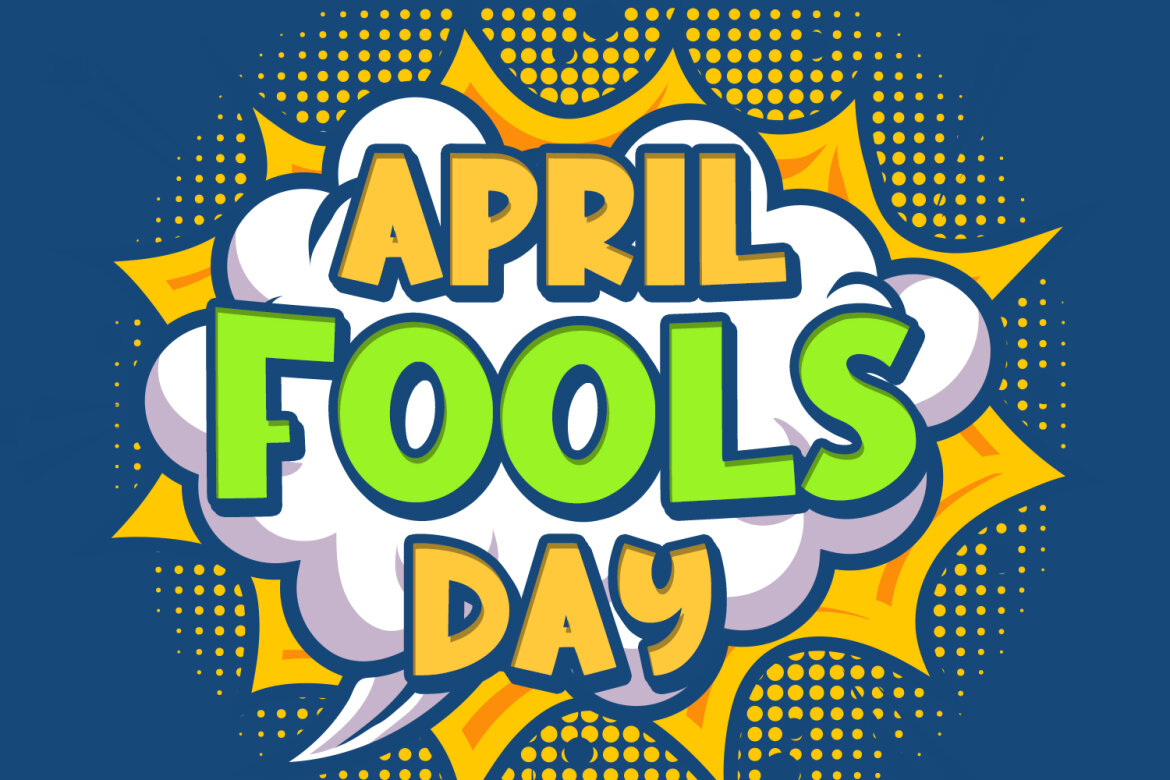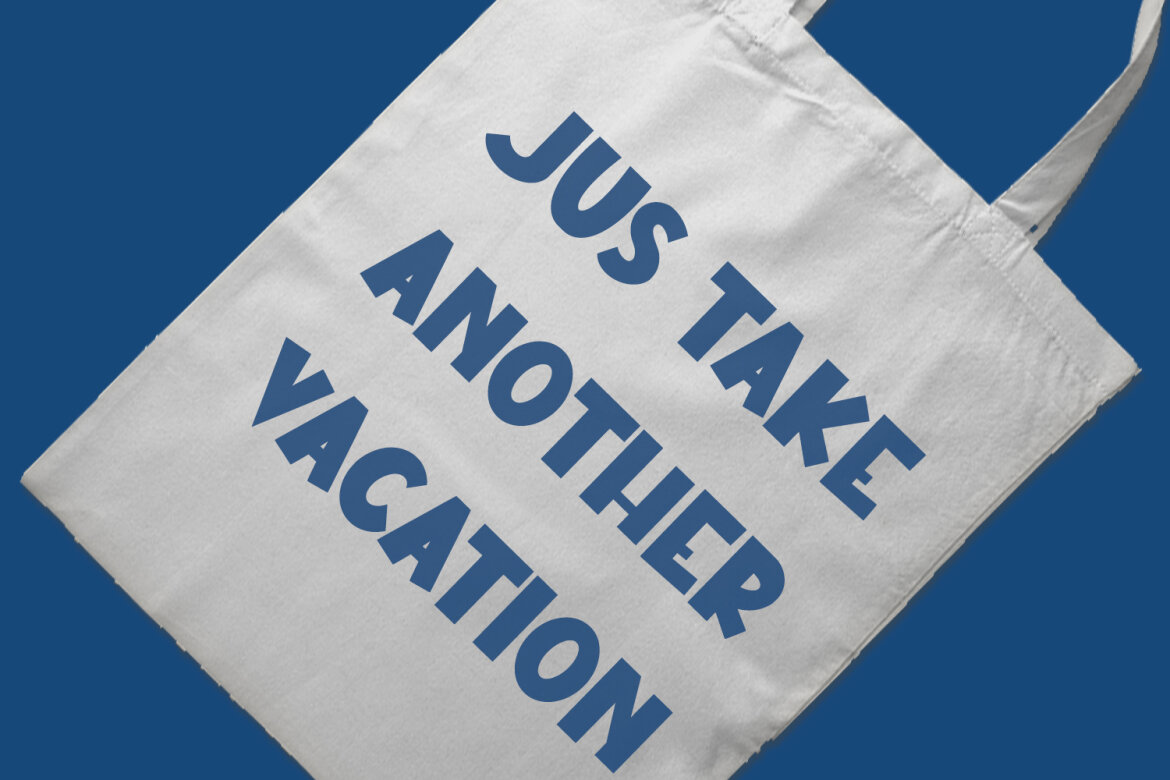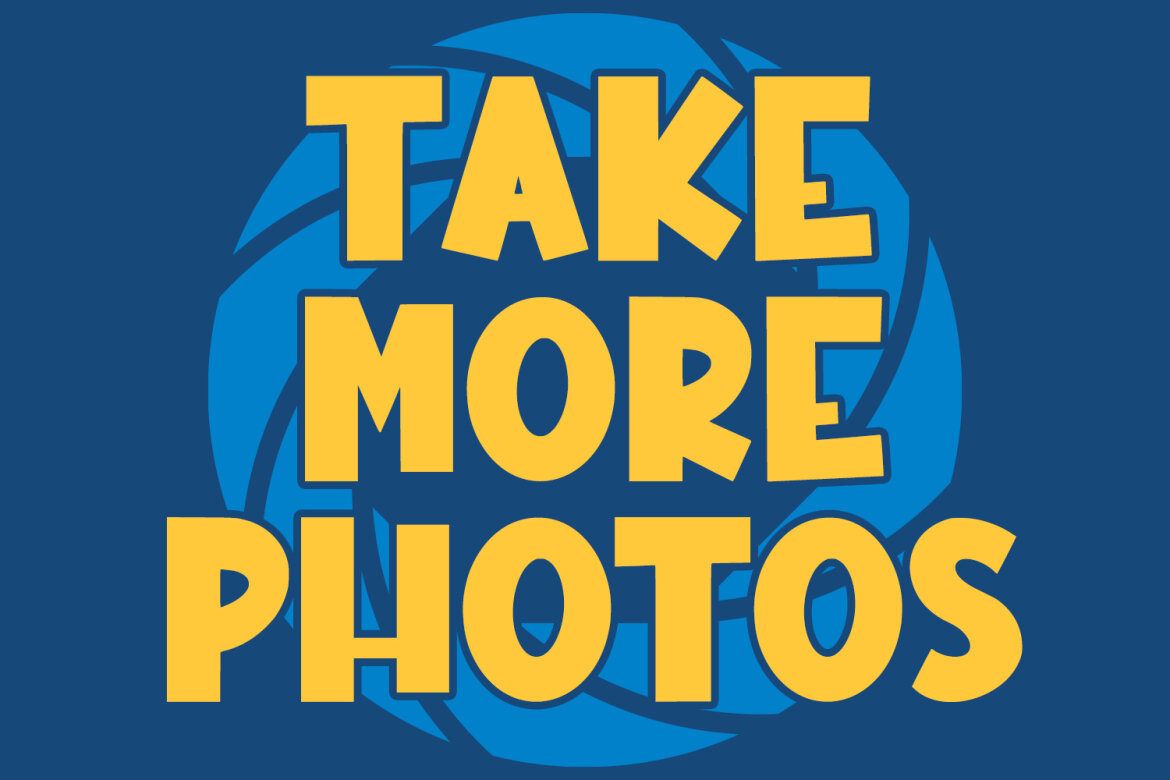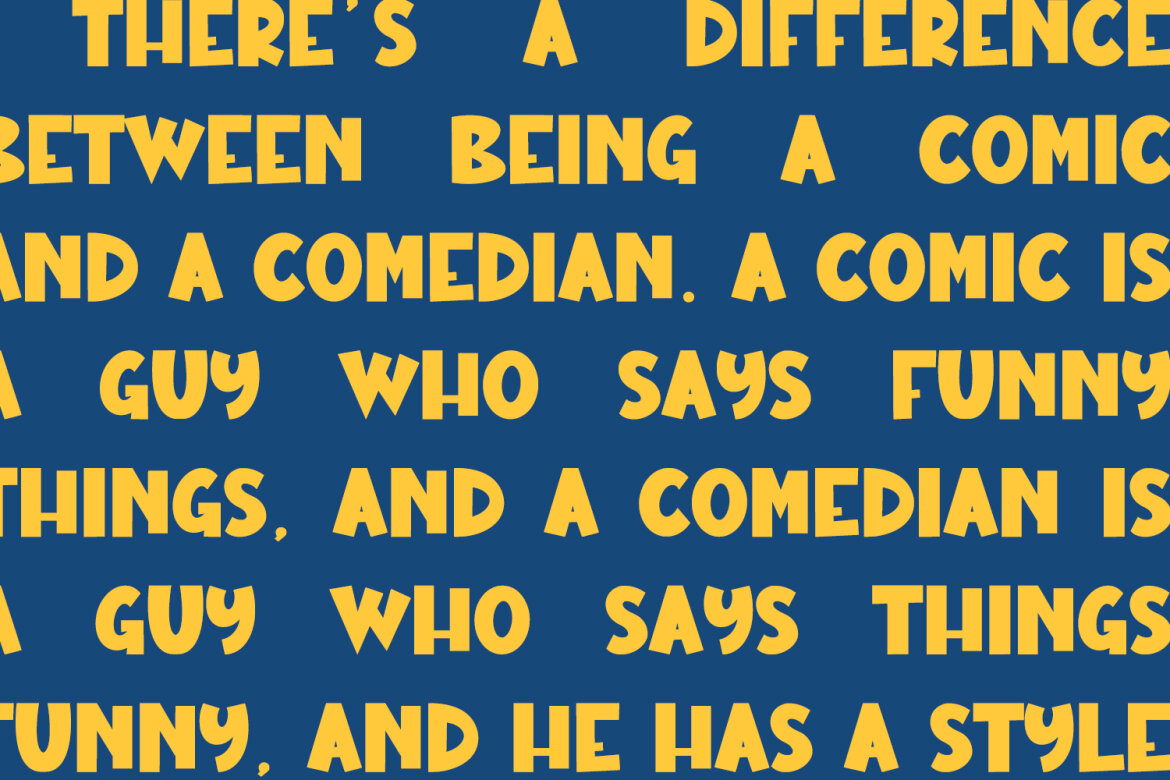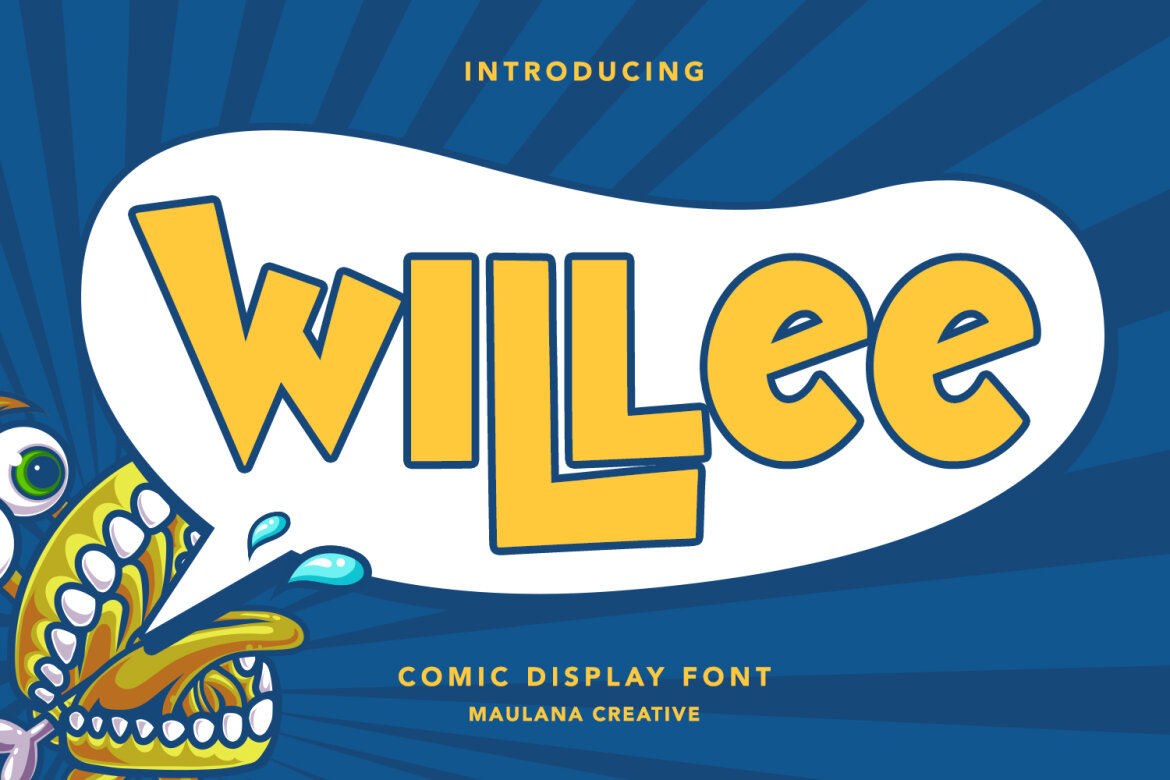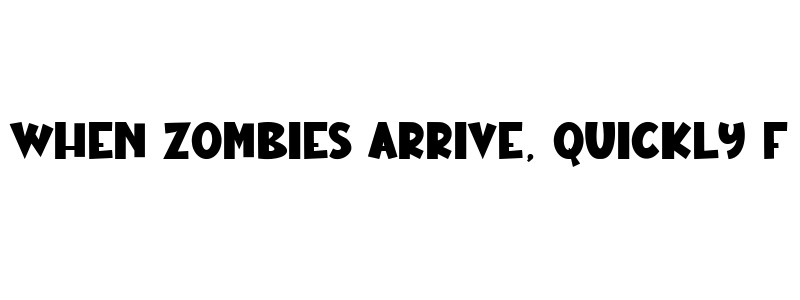
Willee Comic FREE Font
Willee Comic Display Font. Bold stroke, fun character with a bit of ligatures and alternates. To give you an extra creative work. Willee font support multilingual more than 100+ language. This font is good for logo design, Social media, Movie Titles, Books Titles, a short text even a long text letter and good for your secondary text font with script or serif. Make a stunning work with Willee font.